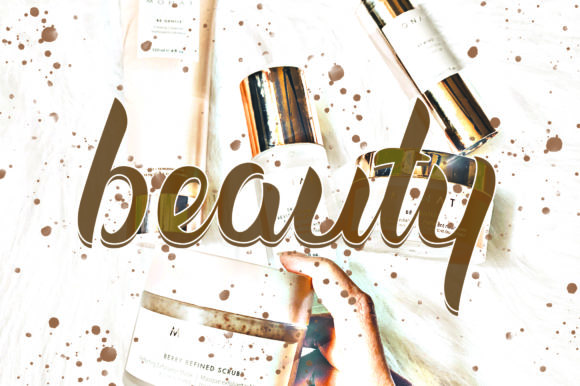
Introducing Beauty Font: The Perfect Choice for Romantic and Personalized Designs
Are you a designer or crafter looking for a font that exudes elegance, sweetness, and romance? Look no further than Beauty Font, a delicate handwritten font that is perfect for a variety of designs requiring a personalized touch. In this article, we’ll explore the features and benefits of Beauty Font, and how it can elevate your designs to the next level.
What is Beauty Font?
Beauty Font is a romantic and charming handwritten font that is designed to add a touch of elegance and sophistication to your designs. Its delicate and sweet appearance makes it perfect for a wide range of applications, from wedding invitations and thank you cards to beauty products and logos.
Key Features of Beauty Font
- Handwritten appearance: Beauty Font has a natural, handwritten appearance that gives your designs a personal and unique touch.
- Delicate and sweet: The font’s delicate and sweet appearance makes it perfect for designs that require a romantic and elegant feel.
- Versatile: Beauty Font can be used for a wide range of designs, from wedding invitations and greeting cards to beauty products and logos.
- Easily readable: Despite its delicate appearance, Beauty Font is easily readable, making it perfect for body text and headlines.
Use Cases for Beauty Font
Beauty Font is a versatile font that can be used for a wide range of designs, including:
- Wedding invitations: Add a touch of romance and elegance to your wedding invitations with Beauty Font.
- Thank you cards: Express your gratitude with beautifully designed thank you cards featuring Beauty Font.
- Greeting cards: Create stunning greeting cards for special occasions, such as birthdays, anniversaries, and holidays.
- Beauty products: Use Beauty Font to create labels, packaging, and branding for your beauty products.
- Logos: Create a unique and memorable logo for your business or brand with Beauty Font.
Why Choose Beauty Font?
There are many fonts available that claim to be elegant and romantic, but Beauty Font stands out from the rest. Here are just a few reasons why:
- Unique appearance: Beauty Font has a unique and distinctive appearance that will set your designs apart from the rest.
- Easily customizable: Beauty Font is easily customizable, allowing you to adjust the font size, color, and style to suit your design needs.
- High-quality: Beauty Font is a high-quality font that is designed to produce crisp and clear results, even at small font sizes.
Tips for Using Beauty Font
Here are a few tips for getting the most out of Beauty Font:
- Use it sparingly: Beauty Font is a delicate font that works best when used sparingly. Use it for headlines and titles, and pair it with a simpler font for body text.
- Experiment with colors: Beauty Font looks stunning in a variety of colors, from soft pastels to rich jewel tones. Experiment with different colors to find the perfect look for your design.
- Pair it with other fonts: Beauty Font pairs well with a variety of other fonts, from simple sans serifs to elegant scripts. Experiment with different font combinations to find the perfect look for your design.
Beauty Font is a stunning handwritten font that is perfect for designers and crafters looking to add a touch of elegance and romance to their designs. With its delicate and sweet appearance, versatility, and high-quality design, Beauty Font is the perfect choice for a wide range of applications. Whether you’re creating wedding invitations, greeting cards, or beauty products, Beauty Font is sure to elevate your designs to the next level.